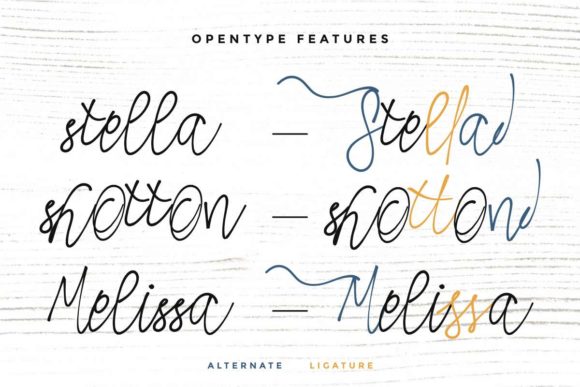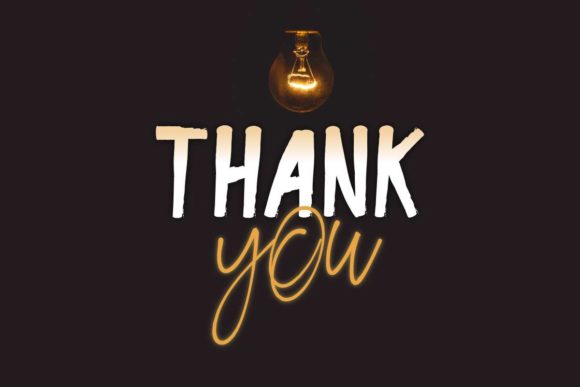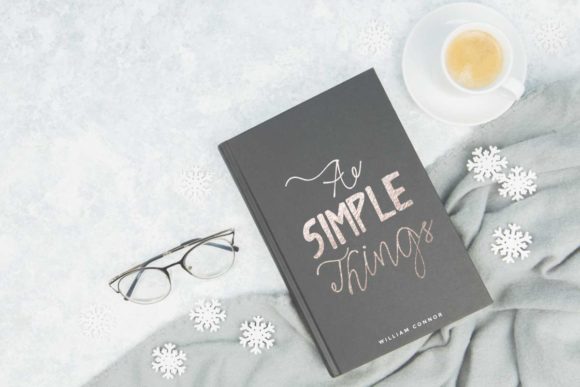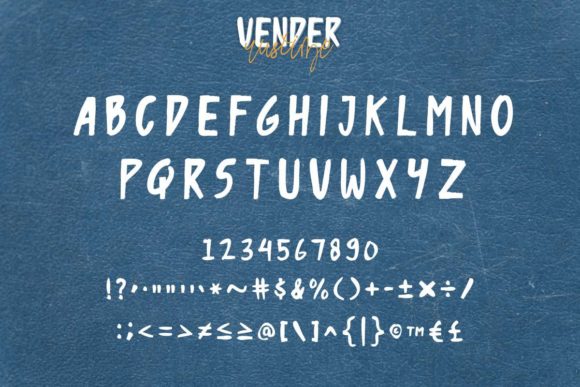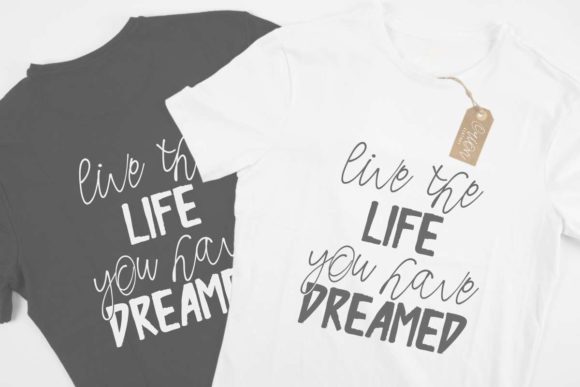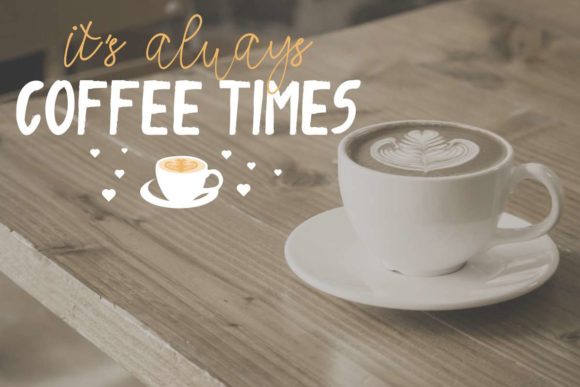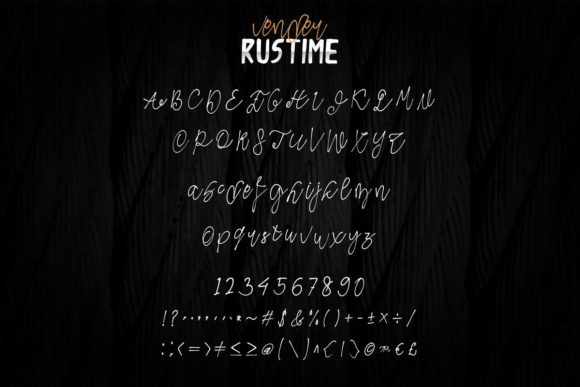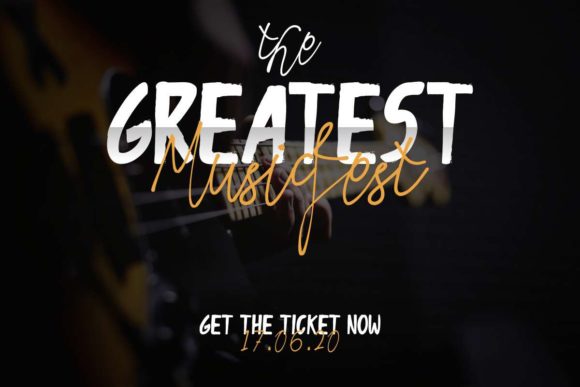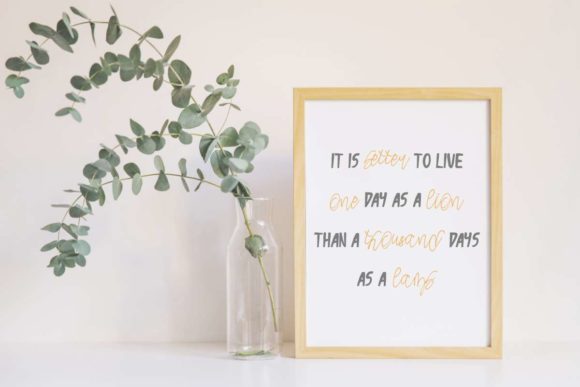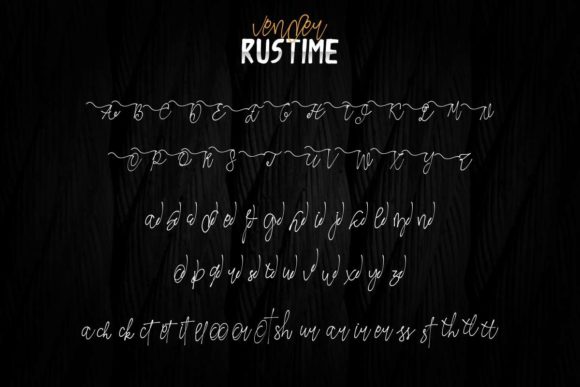
Vender Rustime Duo Font
About Vender Rustime Duo Font
Vender Rustime duo is a match made in heaven, the authentic swashes of the script perfectly complement the display font’s style. Combining these two fonts on your next design will give your next design a magical and elegant feel.
This versatility means that this font can be used in a wide variety of applications from headlines, to DIY projects- the only limit is your imagination!